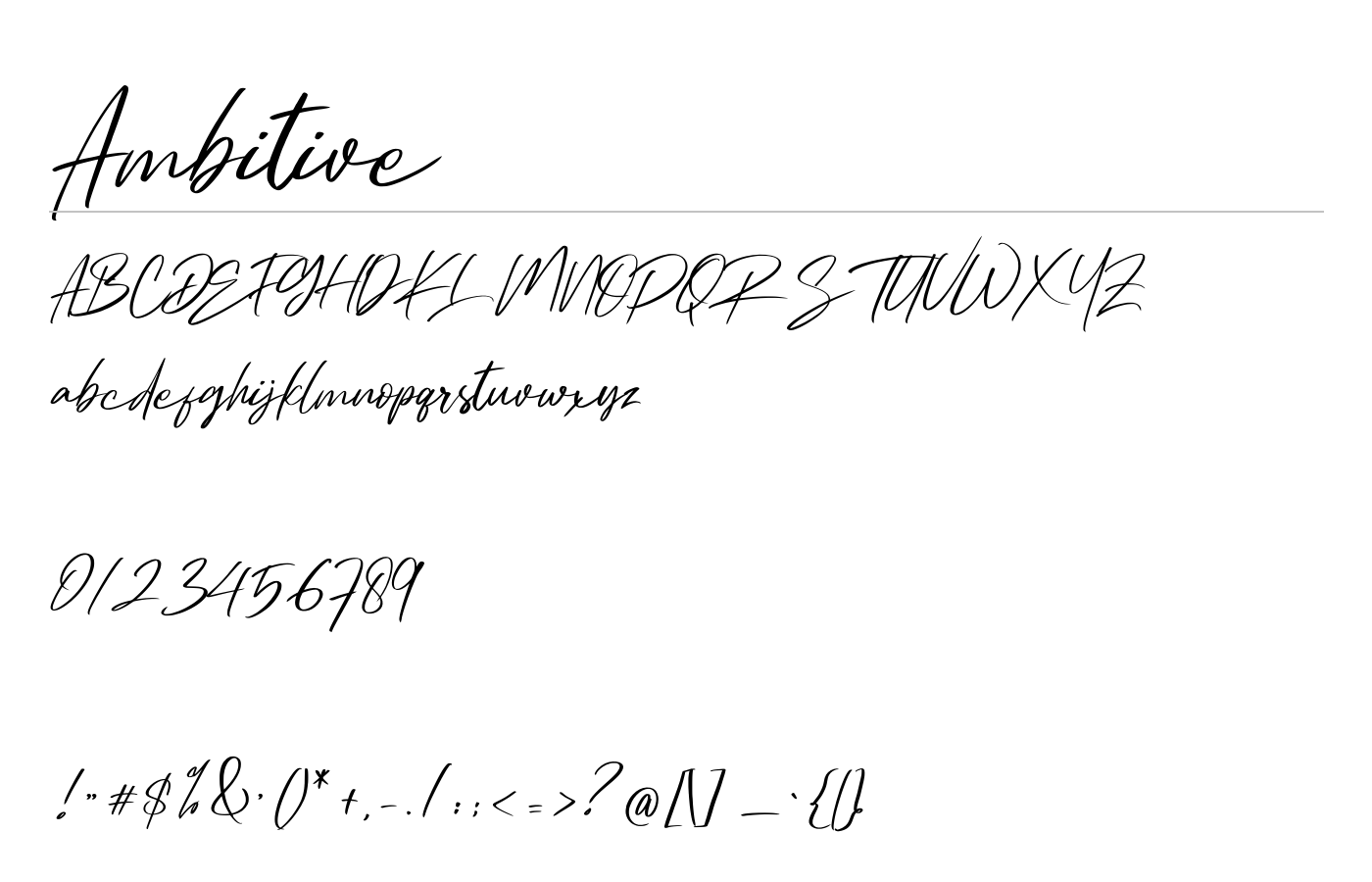
Ambitive is a delicate, handwritten script font featuring slender, flowing strokes with a natural, elegant rhythm. Its tall, slightly condensed letterforms and subtle variations in line weight create a refined yet personal feel, making it ideal for invitations, branding, and expressive headlines where a stylish, graceful touch is desired. This font works particularly well in projects seeking a sophisticated but approachable aesthetic.
Ambitive Font